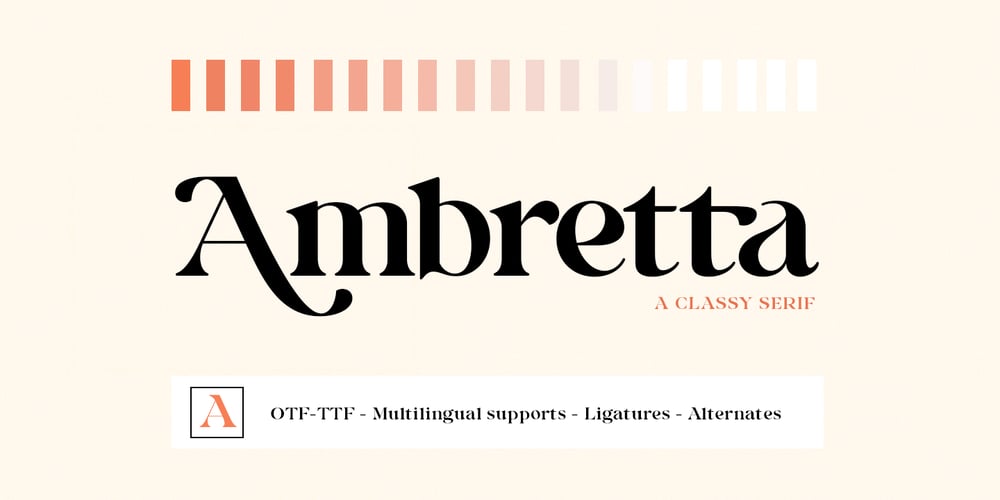
Ambretta Font Family was designed by Ambia and published by Areatype. Ambretta contains 1 styles and family package options. Ambretta serif is a very versatile font.perfect for magazine images, to wedding invitations, to branding, poster design, and more.Files included:Ambretta RegularNumerals & PunctuationStylistic Alternates & LigaturesPUA Encoded CharactersThanks so much for looking, I really hope you enjoy it and please don’t hesitate to drop me a message if you have any issues or queries 🙂